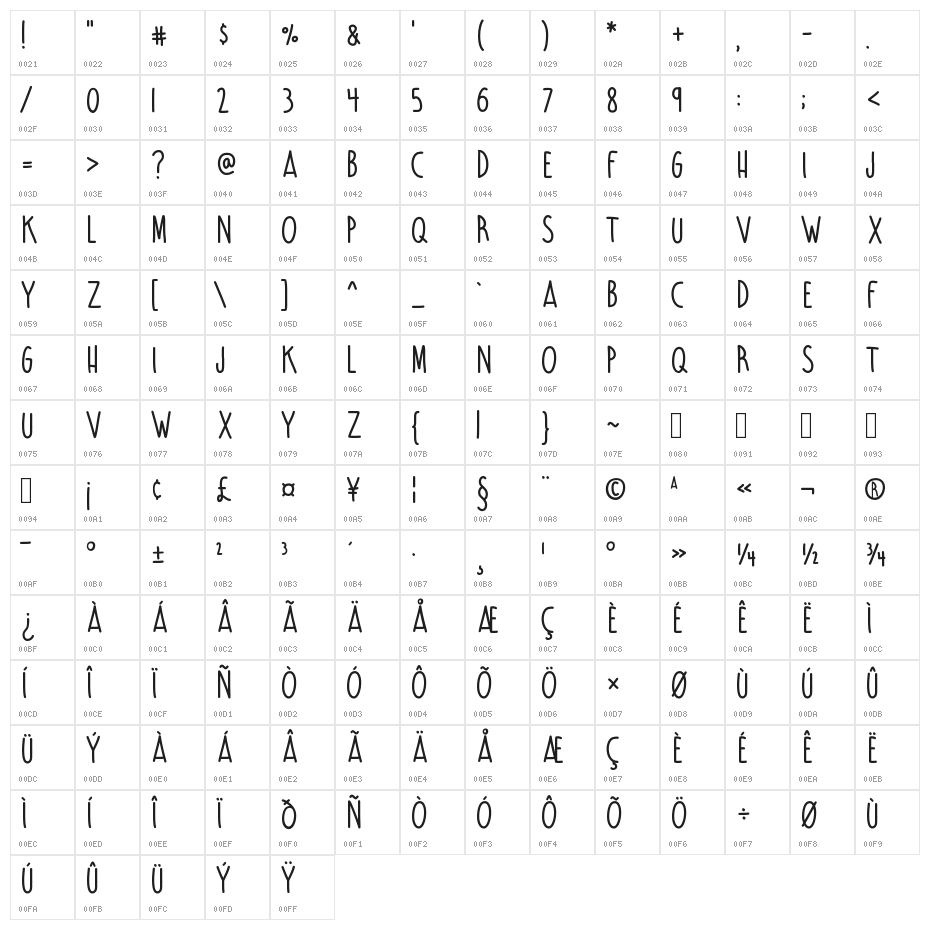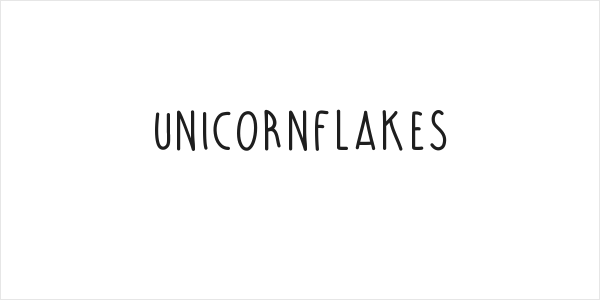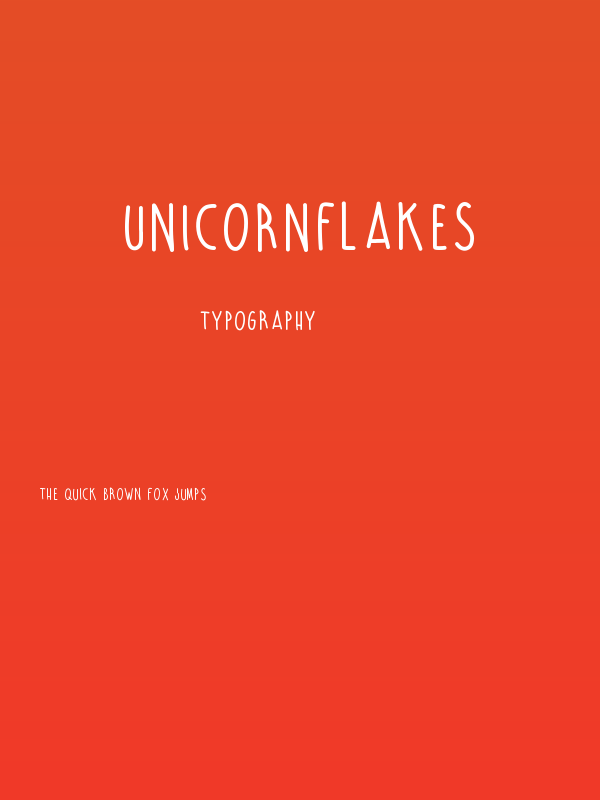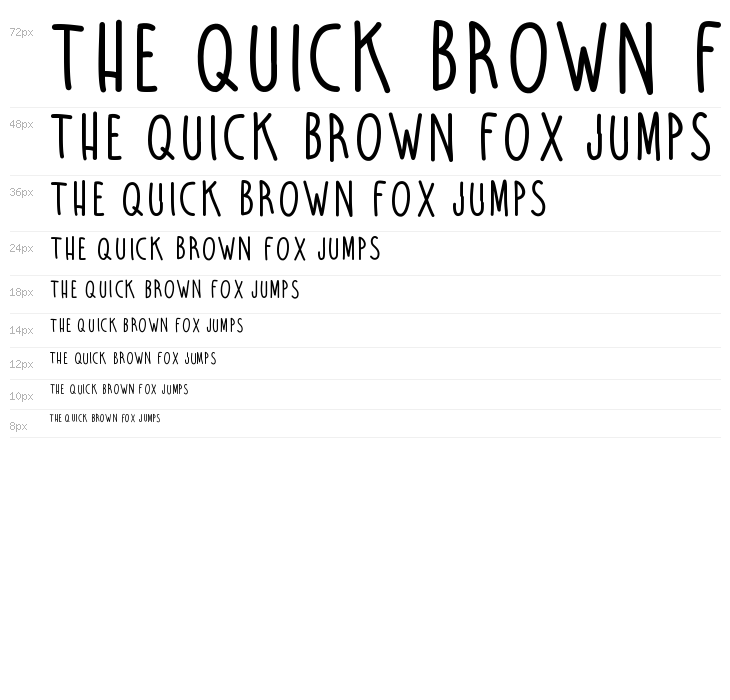
UnicornFlakes Font
UnicornFlakes Description
This playful and whimsical font features a handwritten style with a casual and friendly appearance. The letters are slightly elongated with rounded edges, giving them a soft and approachable look. The uppercase and lowercase characters maintain a consistent style, with a slight variation in stroke width that adds to the hand-drawn feel. The numbers and special characters are designed to match the overall aesthetic, making them suitable for creative and informal projects. This font's unique charm makes it ideal for projects that require a personal touch.
| Proposed Projects | Ideal for children's books, greeting cards, playful branding, and social media graphics. |